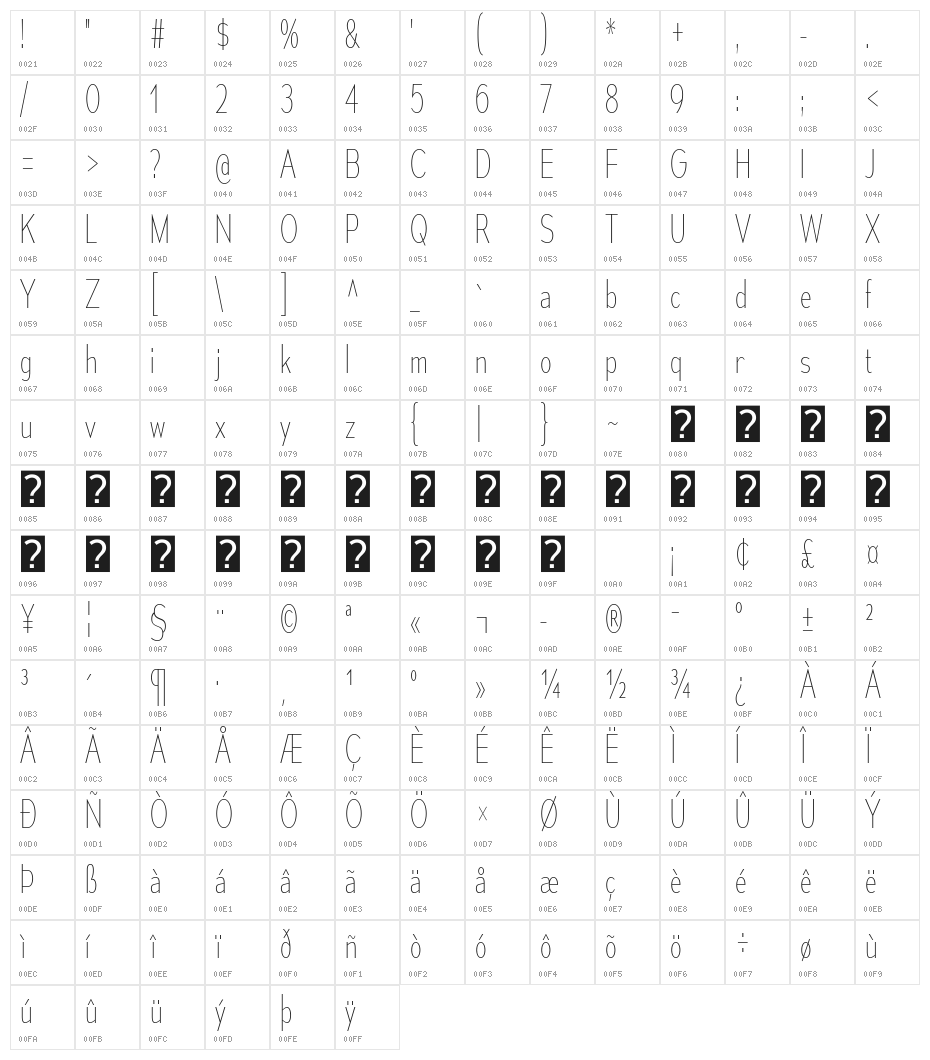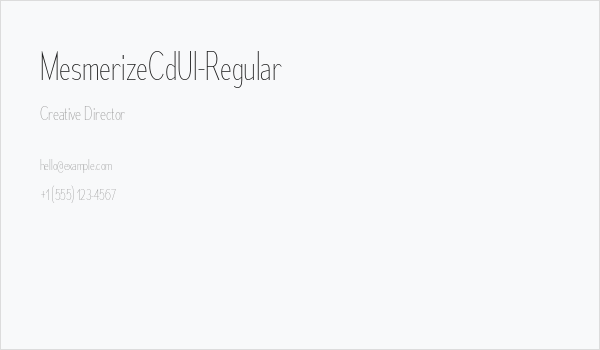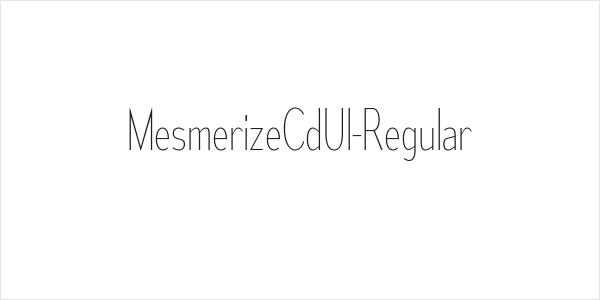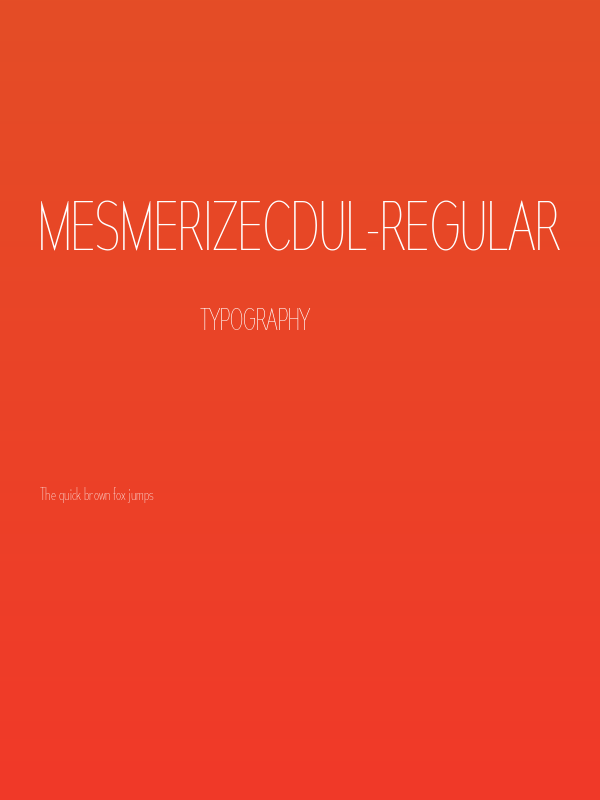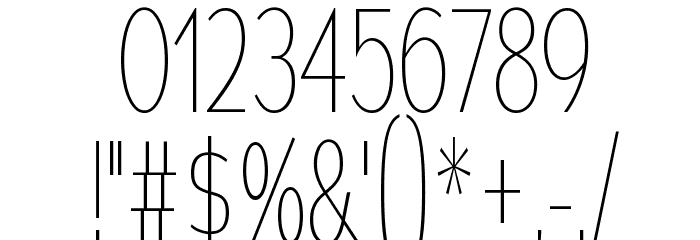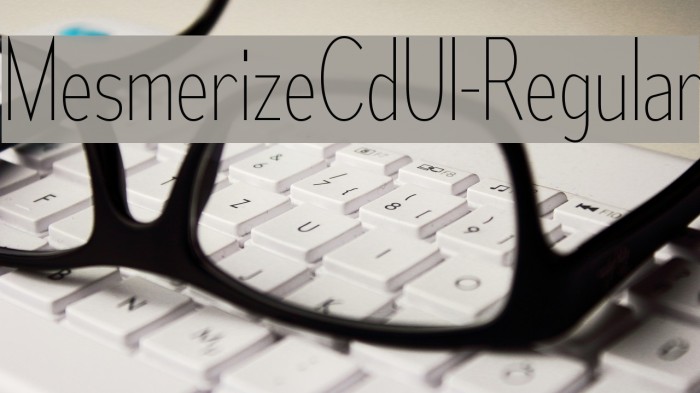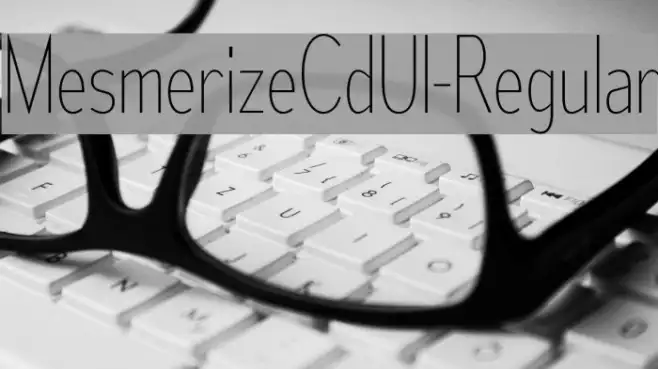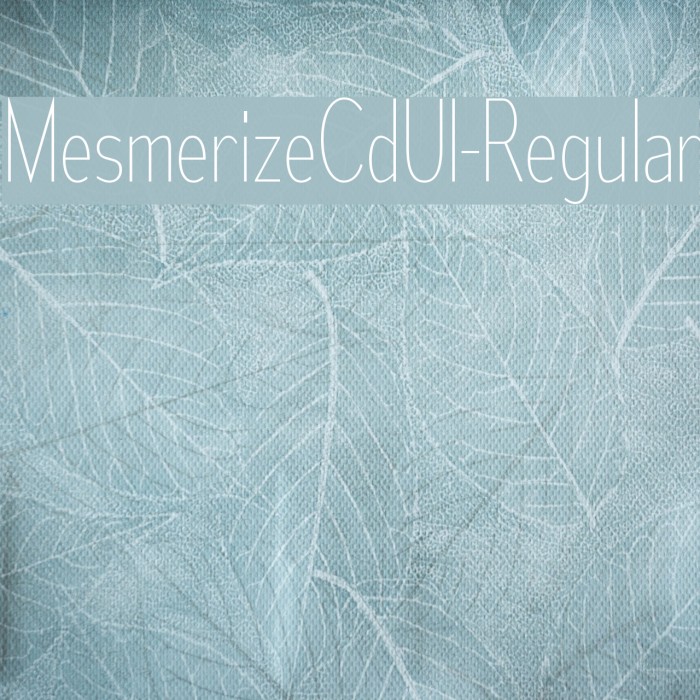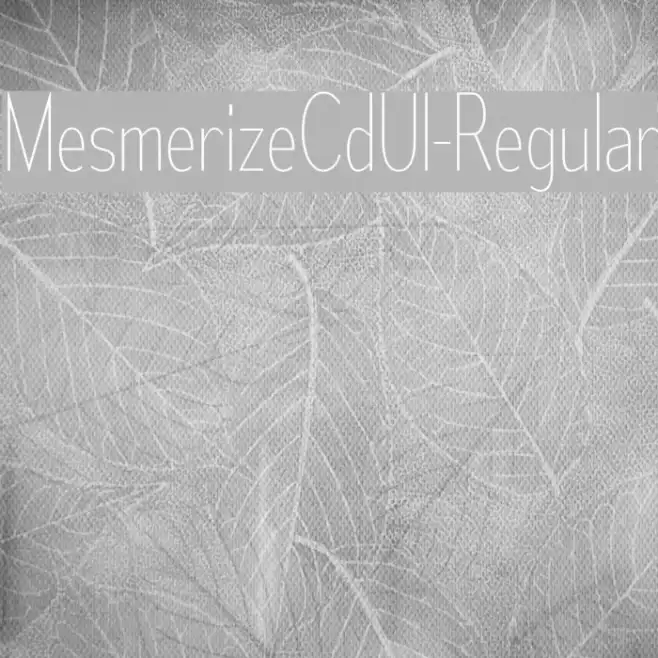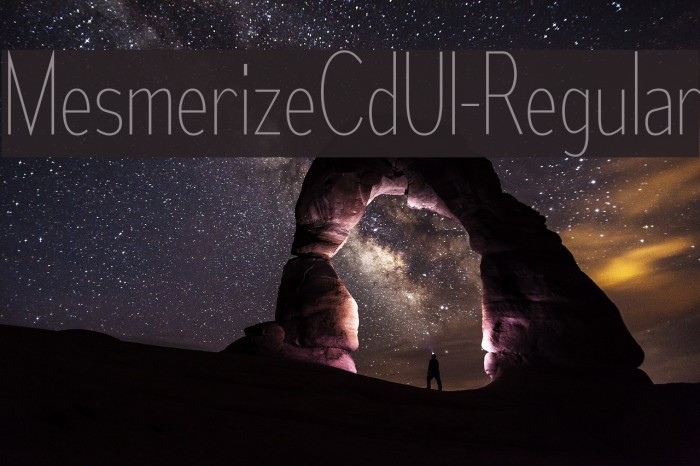
MesmerizeCdUl-Regular Font
MesmerizeCdUl-Regular Description
This font features a clean and modern design with thin, elongated letterforms that convey a sense of elegance and sophistication. The uppercase and lowercase letters are consistently proportioned, maintaining a harmonious balance throughout. The numerals are clear and easily distinguishable, making them suitable for both display and text purposes. Special characters are well-integrated, ensuring versatility in various design contexts. The overall aesthetic is minimalist, with a focus on clarity and readability, making it ideal for contemporary design projects.
| Proposed Projects | Ideal for fashion magazines, luxury branding, minimalist websites, and modern editorial layouts. |